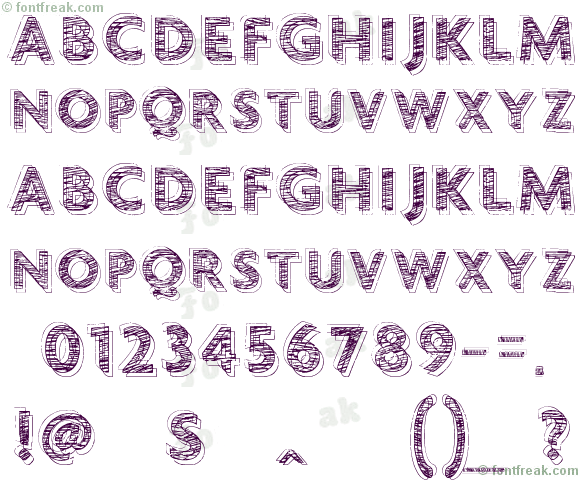
vtks chalk 79
The vtks chalk 79 font by Douglas Vitkauskas is a unique display typeface that captures the playful essence of hand-drawn chalk lettering. This decorative font features a distinctive style characterized by its irregular stroke weight and textured appearance, mimicking the look of chalk on a blackboard. The varying thickness in the lines adds a lively contrast, while the spacious letterforms enhance readability, making it suitable for various applications.
This font's charming aesthetic makes it a fantastic choice for a range of creative projects. It is particularly well-suited for wedding invitations, where its whimsical style can evoke a sense of joy and celebration. Additionally, vtks chalk 79 works beautifully on restaurant menus, adding a casual yet inviting touch that appeals to diners. For event posters, its eye-catching design ensures that important details stand out, while it can also be used in children’s book covers to attract young readers. Graphic designers, small business owners, and content creators will find this font to be a versatile tool in their design arsenal.
What sets the vtks chalk 79 font apart is its ability to convey a sense of warmth and creativity, making it perfect for projects that aim to establish a friendly and approachable vibe. The free download option makes it accessible for anyone looking to enhance their designs without breaking the bank. Whether you’re crafting a playful flyer or a charming invitation, the vtks chalk 79 font free download offers a delightful solution for adding a personal touch to your work. Embrace this unique typeface to bring your creative vision to life.